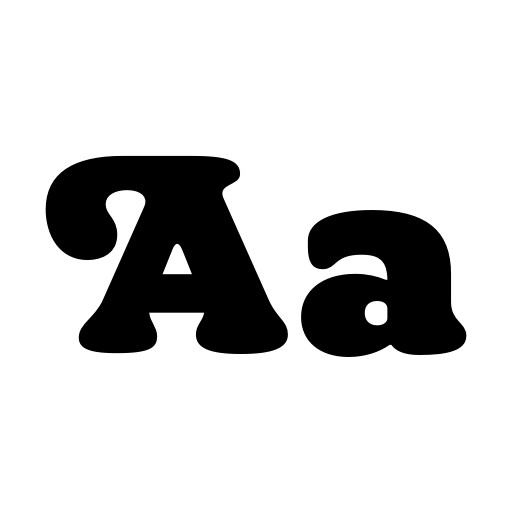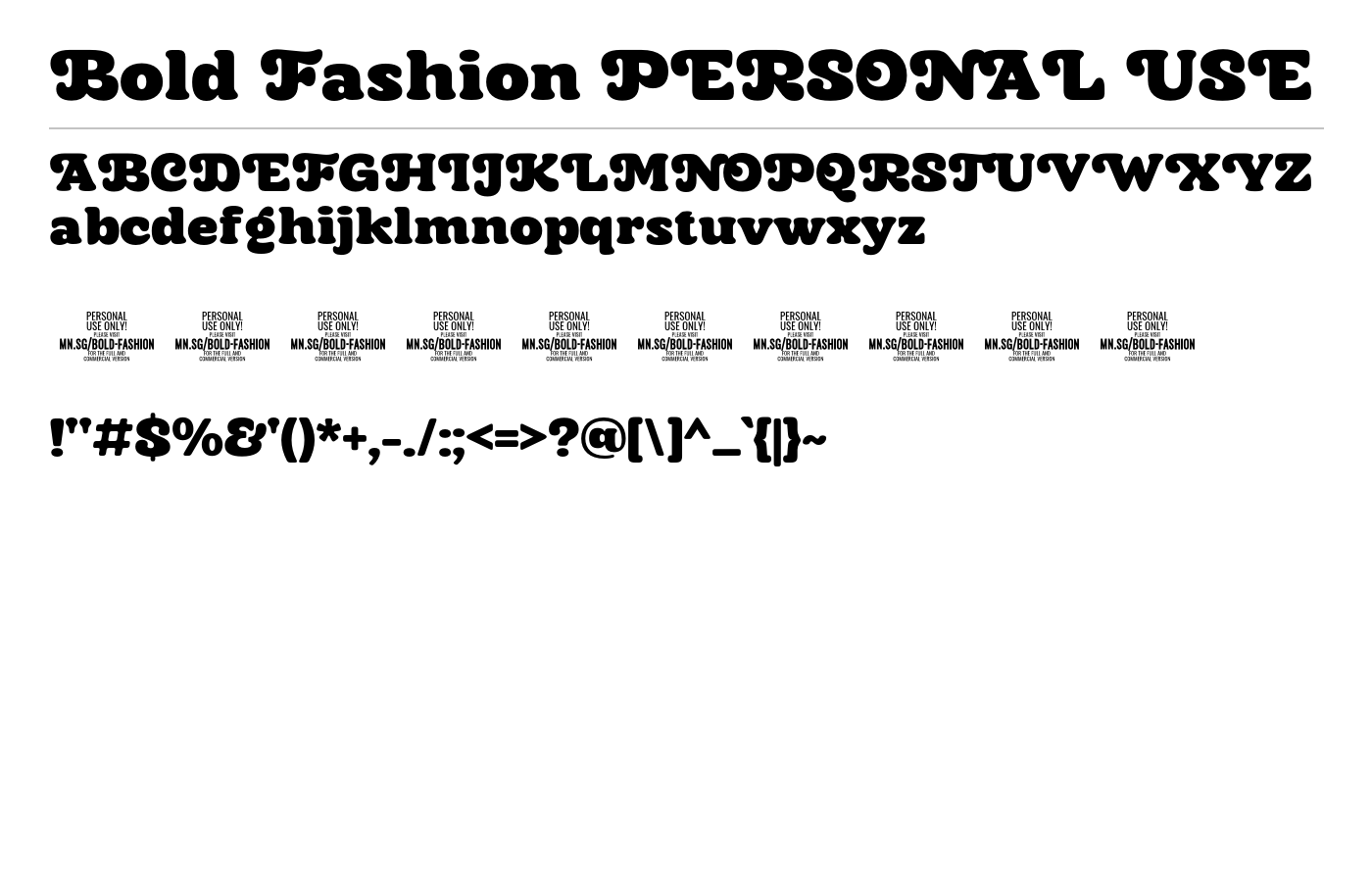
Bold Fashion PERSONAL USE is a heavy, slab serif font with playful, rounded serifs and a strong presence. Its bold weight and unique, chunky letterforms make it ideal for eye-catching headlines and branding with a fun, retro-inspired vibe. This typeface works well for fashion, packaging, and any design that wants to combine boldness with a touch of vintage charm.
Bold Fashion PERSONAL USE Font
About Bold Fashion PERSONAL USE Font